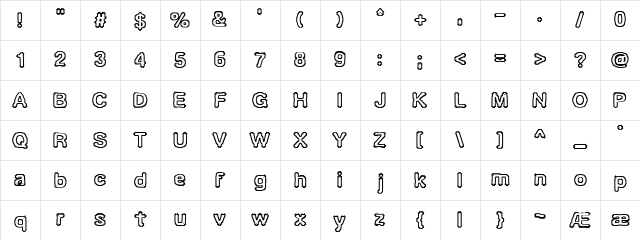
Ubiquity (BRK) Regular
Design Context for Ubiquity (BRK)
Ubiquity (BRK) is a composed and adaptable typeface that performs quietly and consistently across a wide range of design contexts.